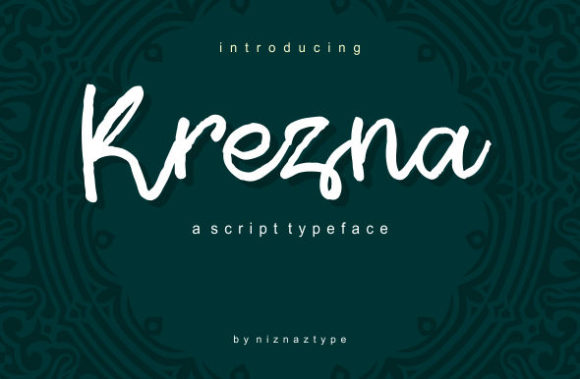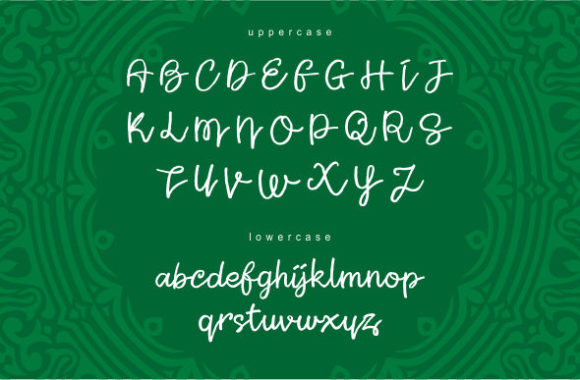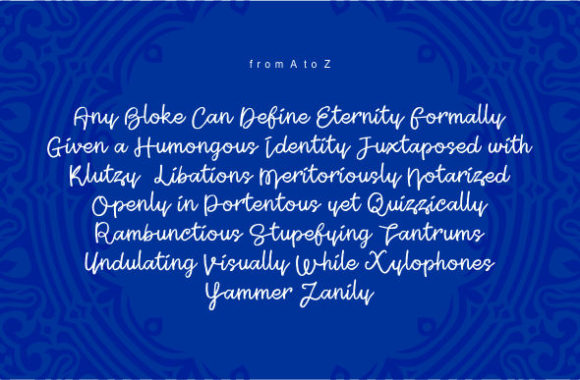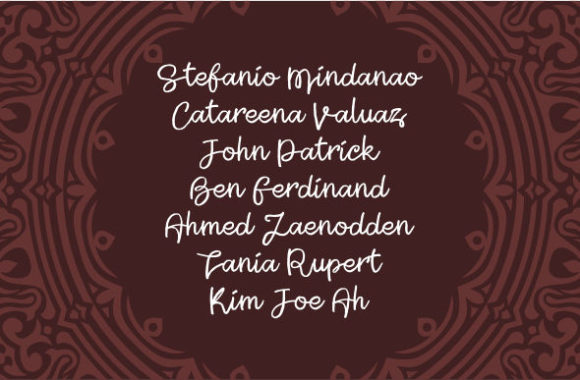
Krezna Font
About Krezna Font
Krezna results out of a stunning pairing of a marker and pencil that makes it look incredibly endearing and authentic. Use this gorgeous and unique handwritten font to bring any DIY project to life!